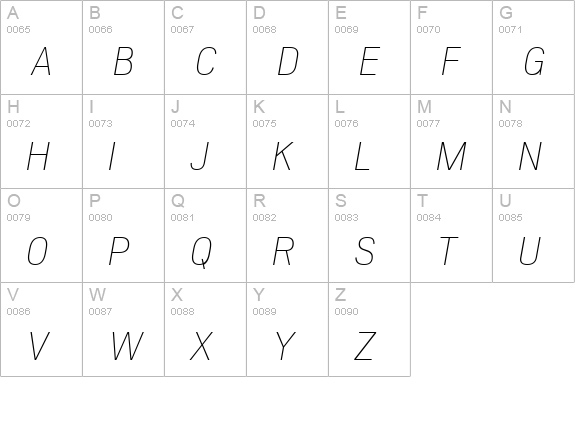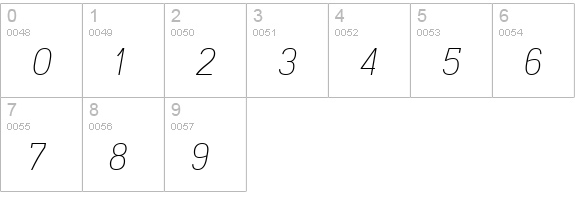
Akazan Lt Italic Font Details
Akazan Lt Italic is a distinctive, italic variant in the Akazan typeface family \xE2\x80\x94 well suited to design and typography projects.
The Akazan Lt Italic font exudes elegance and sophistication with its sleek and stylish design. Its graceful curves and slanted angles add a touch of modernity to any project, making it a versatile choice for various design applications. The flowing lines of this font create a sense of movement and fluidity, capturing the eye and drawing the reader in. What's even better is that Akazan Lt Italic font is available for free download at FontsMarket.com. This means you can enhance your designs with this beautiful font without any cost, making it a valuable addition to your collection. Whether you're working on a branding project, editorial layout, or web design, Akazan Lt Italic font is sure to elevate your work with its unique charm and undeniable appeal. Download it today and let your creativity soar with this stunning and free font option.